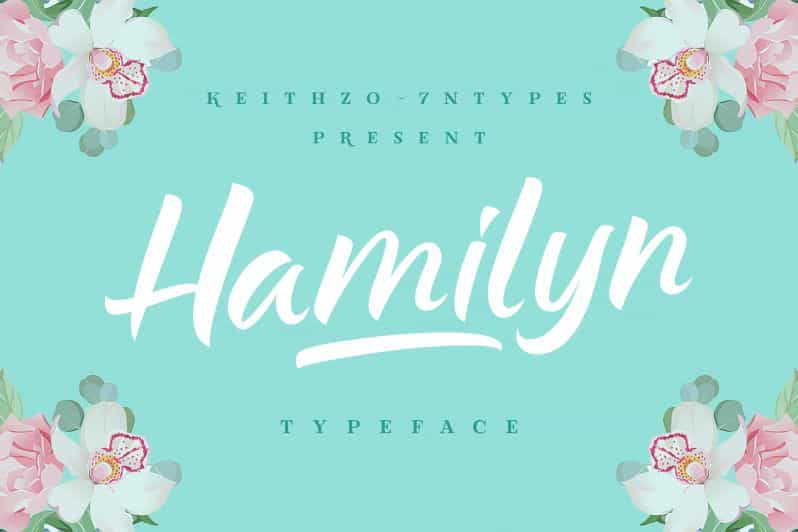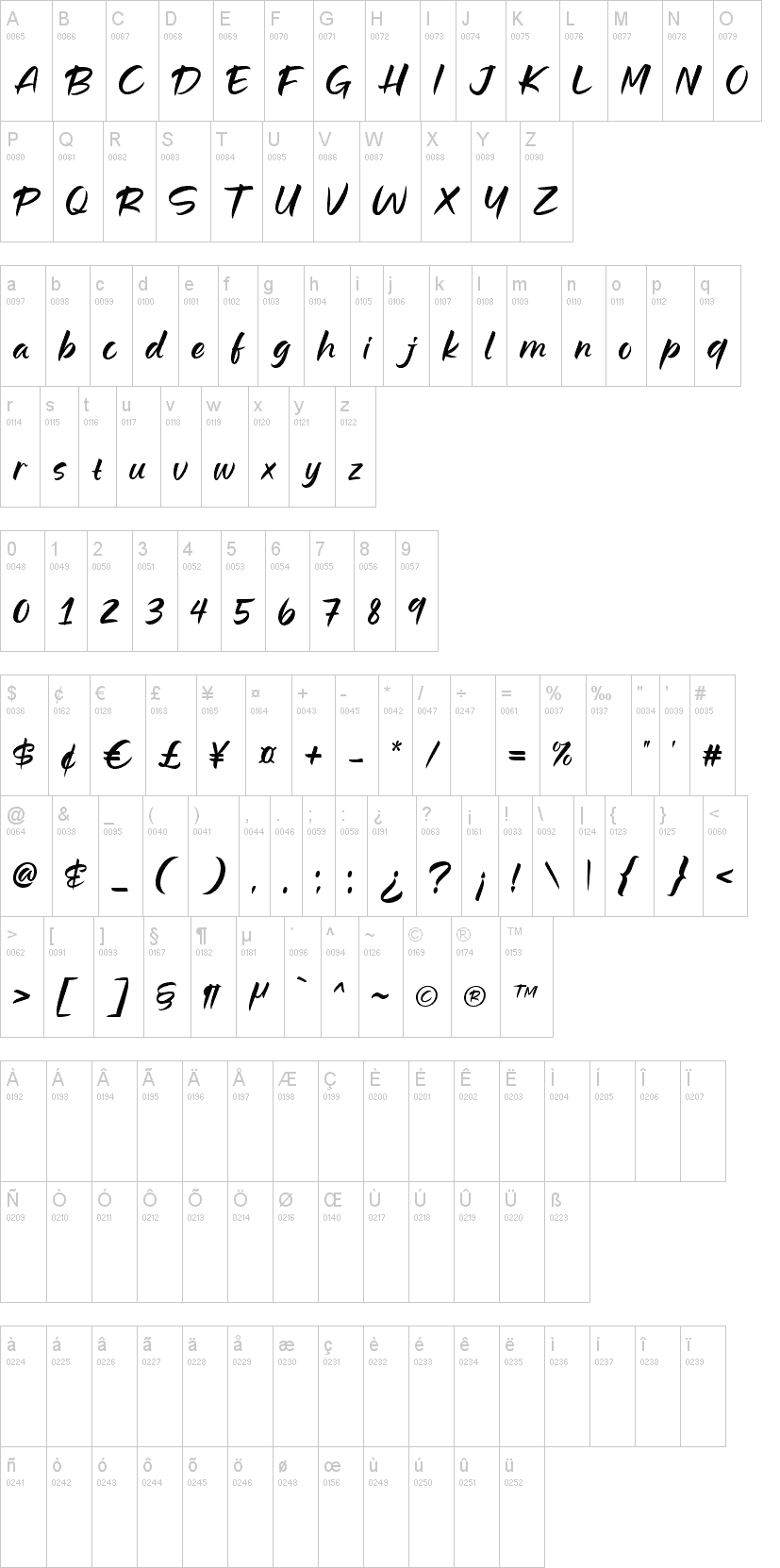
Hamilyn is a high quality Brush font that was created by 7NTypes and it can be downloaded for free and used personally. The free version includes all the letters in upper and lower case plus a few special characters.